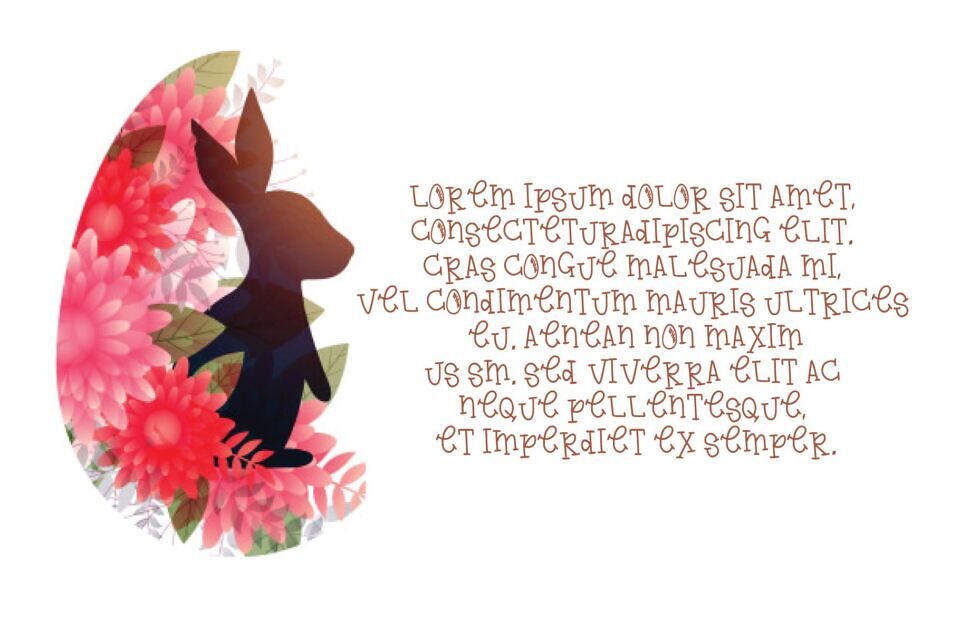
Easter Egg Font
Easter Egg is a quirky and friendly display font. It embodies playfulness and authenticity and is the perfect choice for any children activity or school project. Add this cute lettered font to your designs and notice how it makes them come alive!